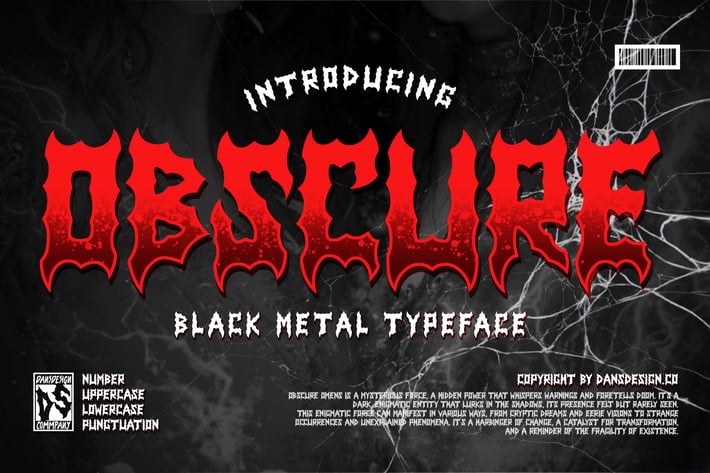
Obscure Metal Horror Blackletter Y2k Graffiti Font
Obscure Metal Horror Blackletter Y2k Graffiti Font is a distinct, highly detailed. Marker Display Font.
It would make a great choice for exquisite retro-urban designs, business branding, logos, Apparel designs, and more.